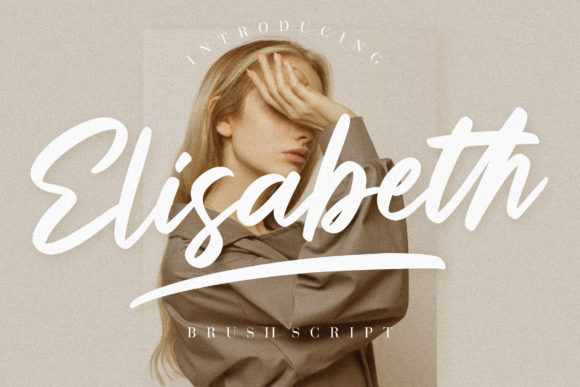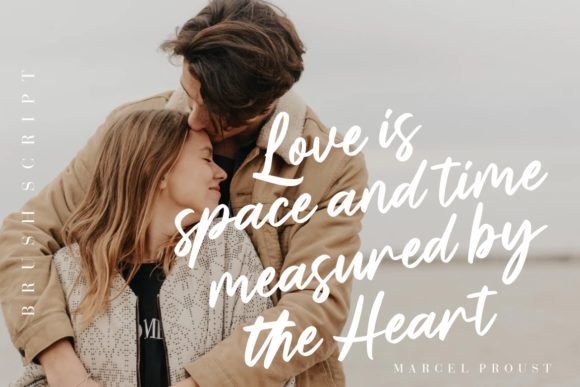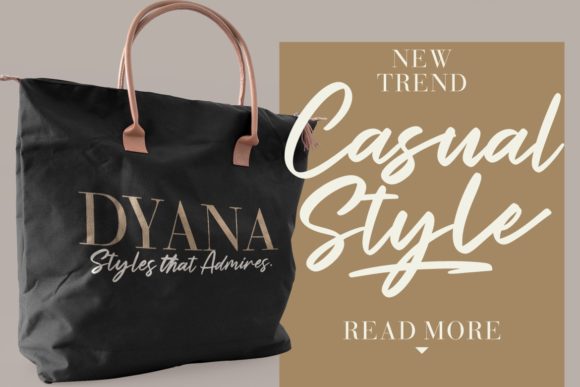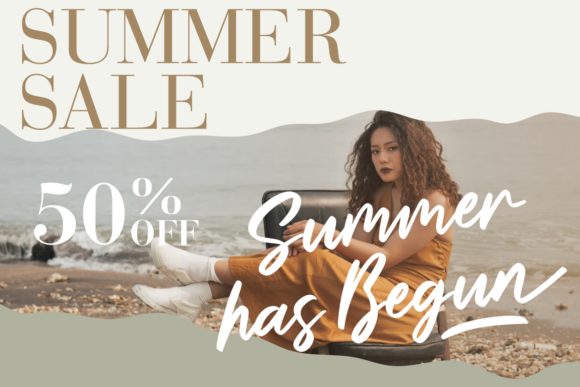
Elisabeth Font: Elegant Brush Script for Wedding & Signature Designs
About the Elisabeth Font
Elevate your designs with Elisabeth Font, a font that combines sophistication with readability. Elisabeth is an cursive brushed script font with a contemporary atmosphere and impeccable form, inspired by timeless classic calligraphy. Not too thin and not too thick, balanced and varied, this font was designed to enhance the beauty of your projects. Elisabeth is PUA encoded which means you can access all of the glyphs and swashes with ease!
Elisabeth’s elegant yet contemporary feel makes it ideal for branding projects, invitations, short text in marketing materials, and social media graphics. It shines in headlines and logos, adding a touch of sophisticated flair. However, its cursive nature makes it less suitable for body text or extended reading. Avoid using it for UI elements or long paragraphs, as readability suffers.
Pair Elisabeth with a clean sans-serif like Montserrat or Open Sans for a modern contrast, or a classic serif such as Garamond or Playfair Display for a more traditional feel. A geometric sans-serif, like Futura, offers a striking juxtaposition. These pairings provide strong visual balance and maintain readability.
The overall personality of Elisabeth is sophisticated and approachable; elegant but not overly formal. Its balanced strokes create a refined look suitable for brands aiming for a timeless yet current aesthetic.
Elisabeth Font Usage Examples
Elisabeth Font Example